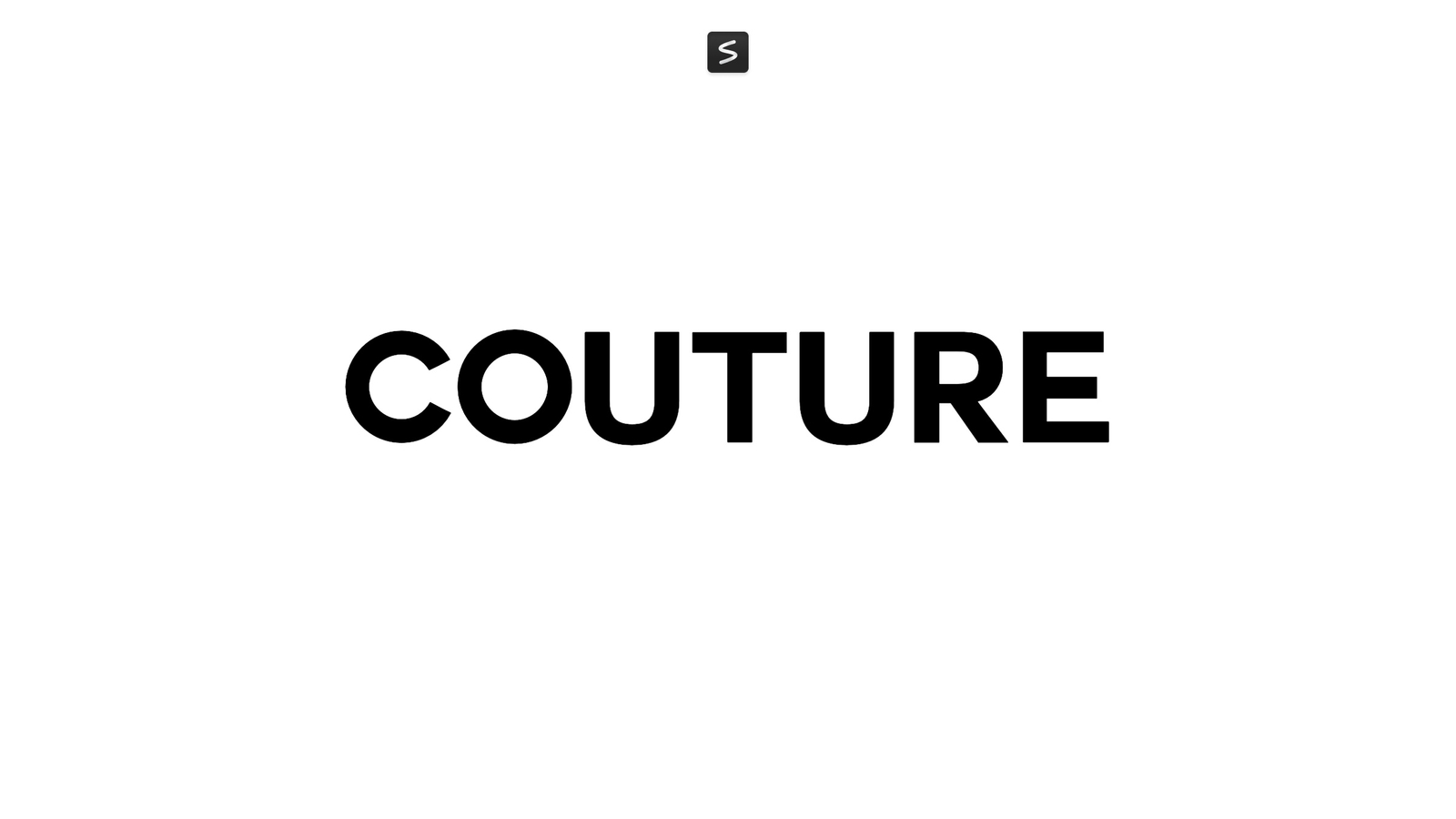
Couture Font
Couture is a modern sans-serif typeface designed by Chase Babb. It features clean, bold letterforms with a strong geometric structure, making it perfect for branding, headlines, and logo design. The font has a sleek and stylish look, ideal for fashion, luxury, and contemporary design projects.
With its sharp edges and balanced spacing, Couture delivers a high-end and professional feel while maintaining excellent readability.